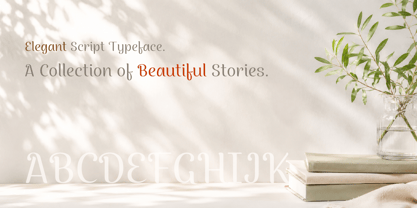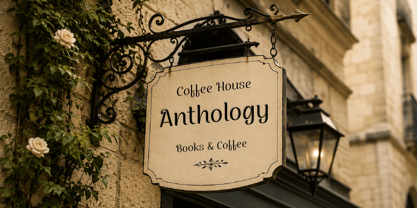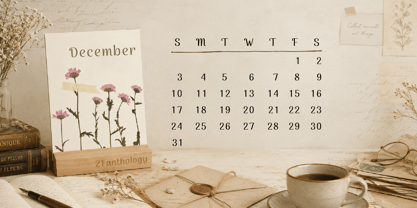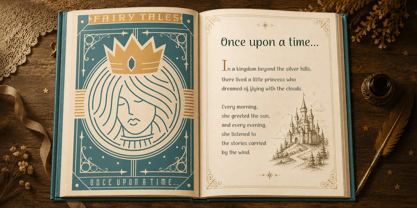
ZFanthology
ZF Anthology is a refined serif typeface inspired by the stories and memories we collect throughout life.
Featuring an elegant stroke contrast, sharp yet graceful serifs, and subtle calligraphic details, it offers excellent readability while conveying a sense of timeless sophistication. Balancing classical serif traditions with modern refinement, ZF Anthology brings warmth, depth, and character to every word.
Equipped with rich OpenType features, including beautiful ligatures and stylistic alternates, it allows for highly customizable and expressive typography.
Perfect for book covers, editorial design, luxury branding, invitations, packaging, and meaningful storytelling.
This font supports Latin-based languages and a wide range of European languages.